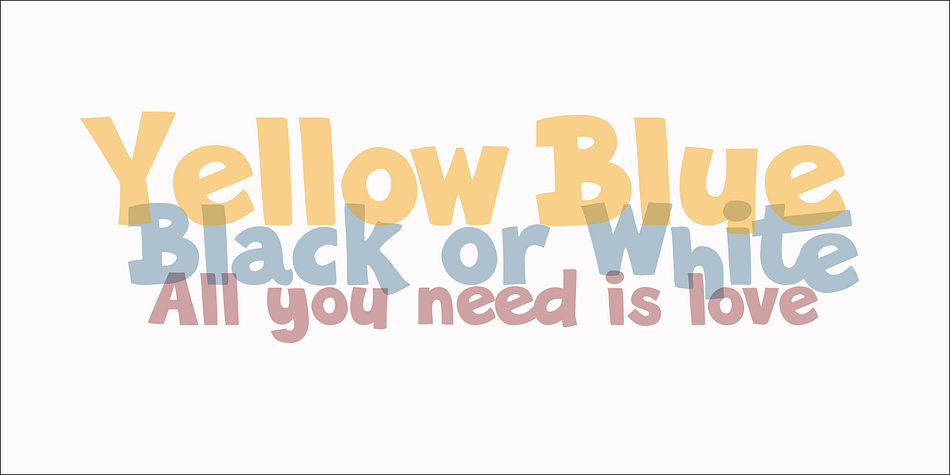
Riky
Designed by Carine de Wandeleer, Riky is a comic and hand display font family. This typeface has two styles and was published by Eurotypo.
Riky is a heavy sans typeface carefully hand-drawn made, with different letter shapes, full of ligatures, and stylistic alternates that will provide great flexibility for your designs.
Ricky’s typeface is lively, dynamic and energetic. This font has an informal and decorative style.
Riky fonts come in 2 versions: Shadow and solid. These fonts are quite perfect for packaging design, posters, children books and many other purposes.